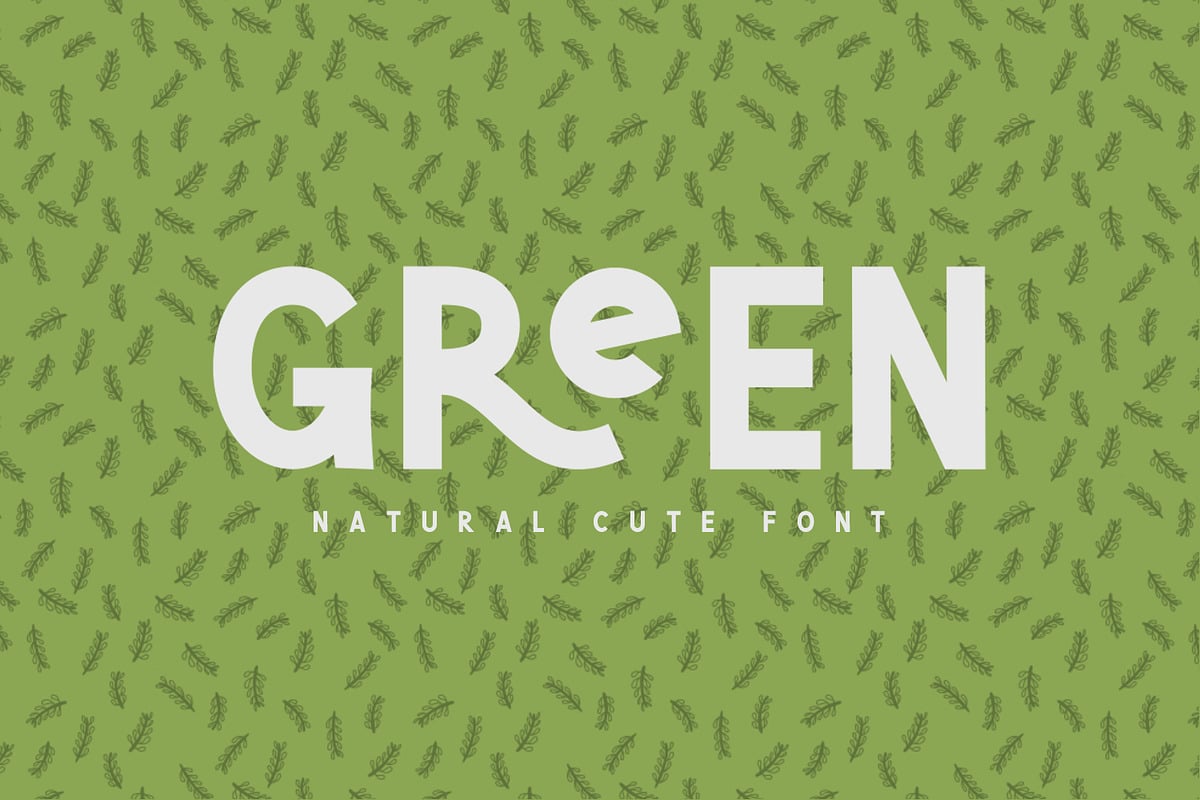
Green | Natural Cute Font
Bring freshness and natural charm to your designs with Green — a playful, organic sans serif typeface full of life.
As Pedro Calderon de la Barca once said, "Green is the prime color of the world, and that from which its loveliness arises." Inspired by that very spirit, this font captures the beauty, freshness, and coolness of nature in every letterform. Hopefully it brings you as much excitement using it as there was joy in creating it!
Whether you're designing branding, packaging, posters, or playful creative projects, Green is ready to add that natural, feel-good energy to your work. Now go ahead and get designing!